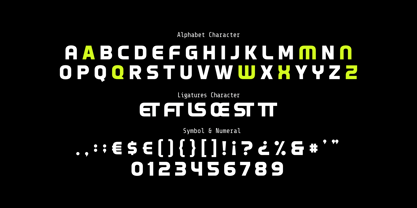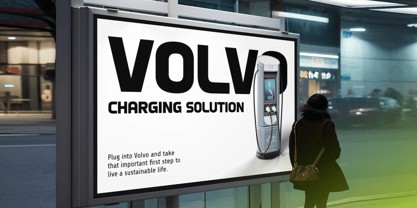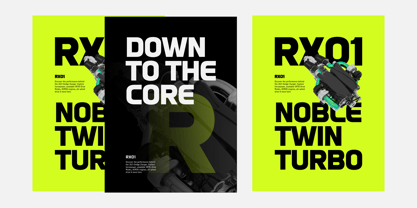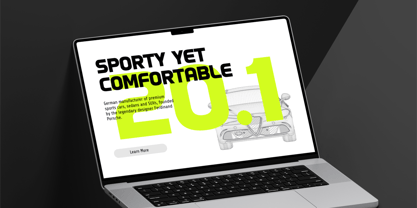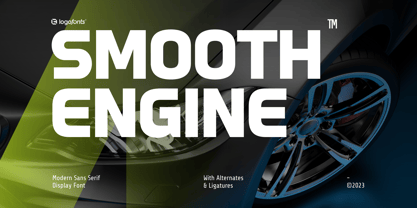
Smooth Engine
by Logofonts
The Smooth Engine Font Family was designed by Anna Safitri and published by Logofonts. Smooth Engine contains 1 styles. More about this family
This is Smooth Engine. This is typeface offers a bold and expansive design that embraces the modern aesthetic with its wide letterforms and clean, sans serif structure. Its open and airy spacing delivers a sense of strength and clarity, making it ideal for headlines, signage, and branding that need to command attention. The wide proportions enhance legibility, even at larger sizes, while the geometric simplicity adds a contemporary edge to any project. Perfect for digital and print applications, this typeface balances modernity with readability, offering a versatile solution for designs that need to stand out and make a statement.
Designers: Anna Safitri
Foundry: Logofonts